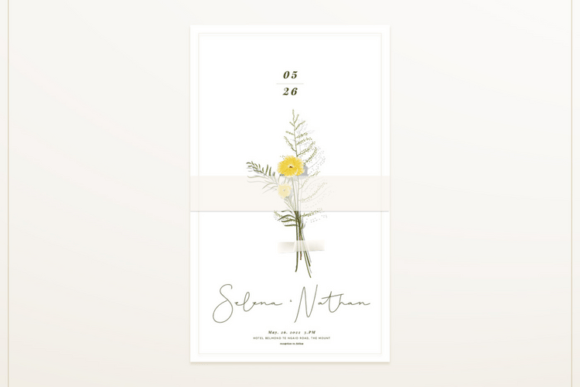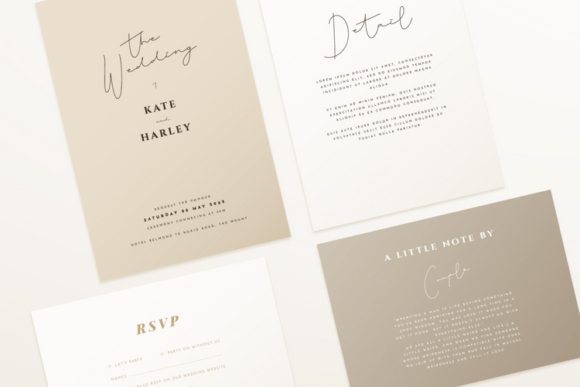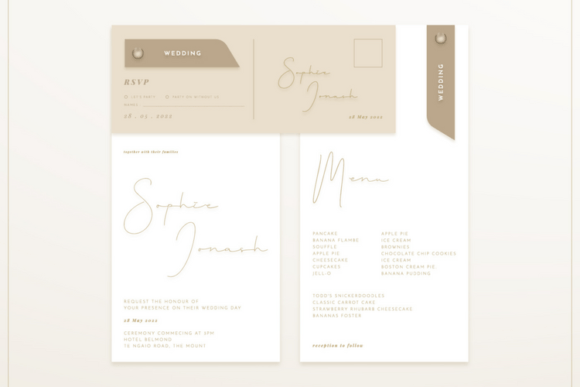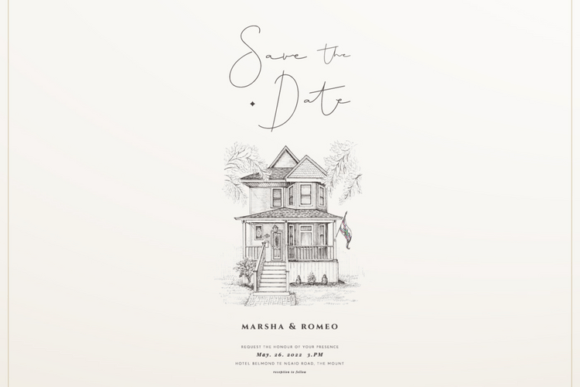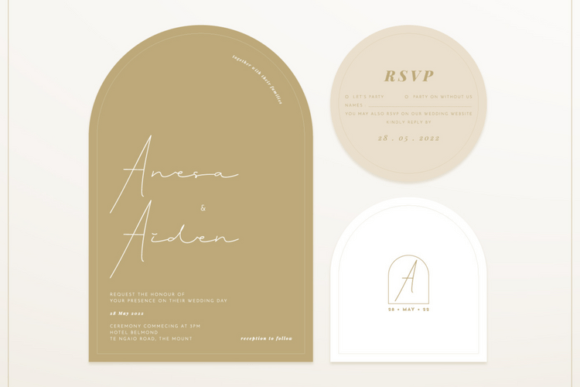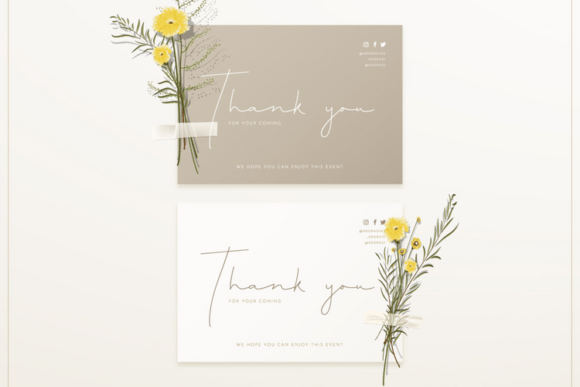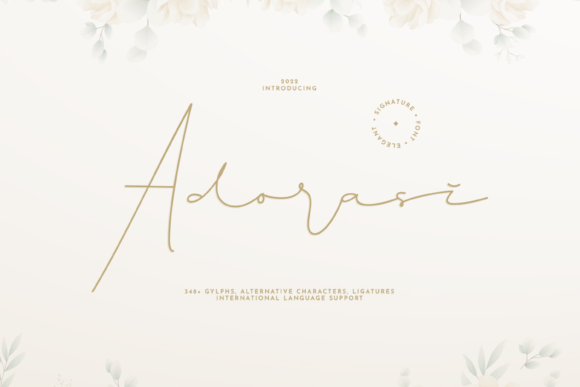
Introducing Adorasi Font: Elevate Your Designs with Elegance and Sophistication
In the world of typography, fonts play a crucial role in conveying the tone and personality of a design. For designers and crafters looking to add a touch of luxury and sophistication to their projects, Adorasi Font is an excellent choice. This classy, elegant, and feminine handwritten script font is designed to make your designs stand out and leave a lasting impression.
What is Adorasi Font?
Adorasi is a beautifully crafted handwritten script font that exudes elegance and refinement. Its flowing lines, delicate strokes, and intricate details make it perfect for designs that require a touch of luxury and sophistication. Whether you’re working on a branding project, packaging design, or social media graphics, Adorasi Font is sure to add a spark of elegance and glamour.
Key Features of Adorasi Font
• Classy and Elegant: Adorasi Font boasts a sophisticated and refined aesthetic that is perfect for high-end designs.
• Feminine Touch: The font’s delicate strokes and flowing lines give it a distinctly feminine charm, making it ideal for designs that require a touch of elegance and poise.
• Handwritten Script: Adorasi Font is a handwritten script font that adds a personal and human touch to your designs.
• Luxury Appeal: The font’s luxurious and sophisticated feel makes it perfect for high-end branding, packaging, and advertising designs.
Use Cases for Adorasi Font
Adorasi Font is versatile and can be used in a variety of design projects, including:
• Branding and Logo Design: Create a lasting impression with a luxurious and sophisticated brand identity.
• Packaging Design: Add a touch of elegance and refinement to your product packaging.
• Social Media Graphics: Create stunning social media graphics that showcase your brand’s personality and style.
• Wedding and Event Design: Add a touch of luxury and sophistication to your wedding or event designs.
Why Choose Adorasi Font?
With so many fonts available, why choose Adorasi Font? Here are a few reasons:
• Unique and Distinctive: Adorasi Font is a unique and distinctive font that will set your designs apart from the rest.
• High-Quality: The font is designed with high-quality and precision, ensuring that it looks great in any design.
• Versatile: The font is versatile and can be used in a variety of design projects.
Tips for Using Adorasi Font
Here are a few tips for using Adorasi Font in your designs:
• Pair with Neutral Colors: Pair Adorasi Font with neutral colors like black, white, or gray to create a sophisticated look.
• Use for Headlines: Use Adorasi Font for headlines and titles to add a touch of luxury and sophistication.
• Experiment with Sizes: Experiment with different font sizes to create visual interest and hierarchy.
Adorasi Font is a stunning handwritten script font that adds a touch of luxury and sophistication to any design project. With its classy and elegant aesthetic, feminine charm, and versatility, it’s perfect for designers and crafters looking to create high-end designs. Whether you’re working on a branding project, packaging design, or social media graphics, Adorasi Font is sure to elevate your designs and leave a lasting impression.